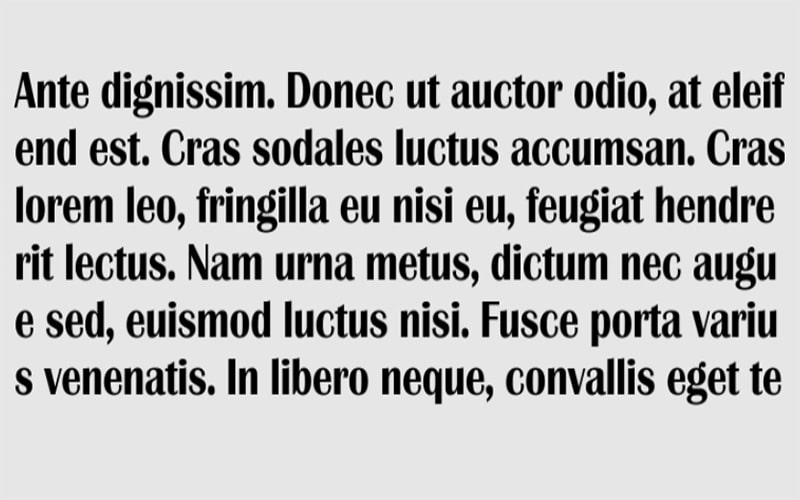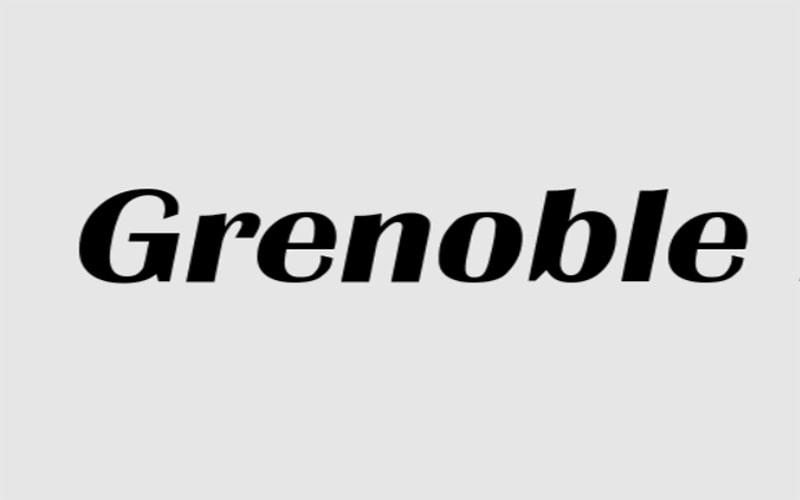
Grenoble is a various typeface. That has stylish, small, and dark shade letters which make this typeface delicate and more glorious.
The subfamily of this font is bold. A unique character font contains 4 styles that make this typeface prominent for your ongoing projects.
The styles include “Grenoble Bold ”,” Grenoble Italic”, “Grenoble Regular”, and” Grenoble Bold Italic” font styles.
Grenoble Font
This multi-weight font makes is perfectly designed for different stylish projects such as graphic designing, product packaging, logos, and many more.
The most charming and enticing typeface contains 226 defined characters for each style. It has come with 209 Glyphs counted in number with 1000 units per EM.
The glamorous free version font is available in all lowercase and uppercase letters, numbers, and some special characters.